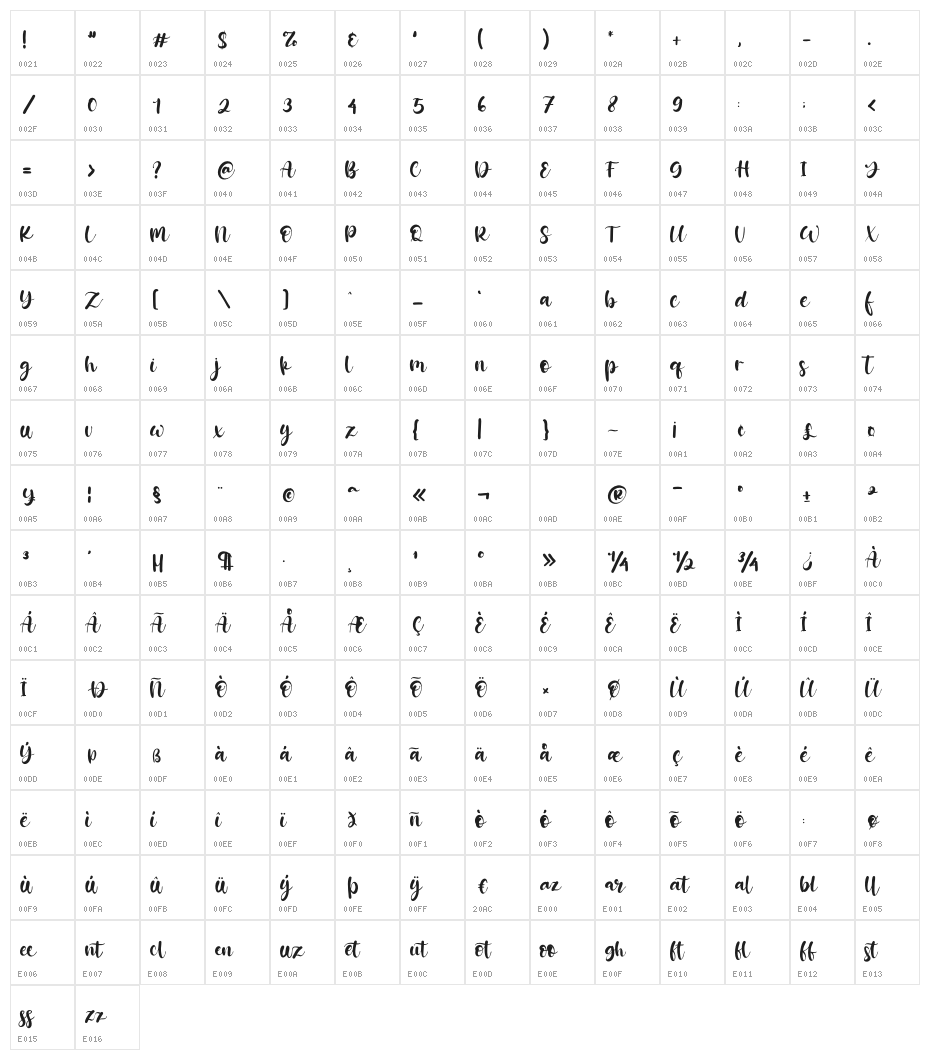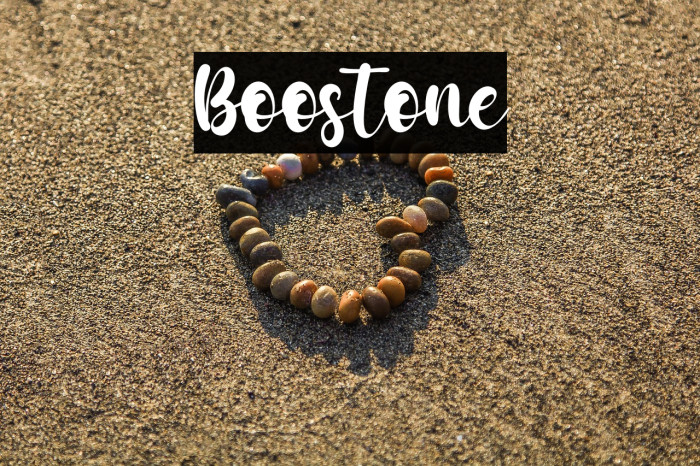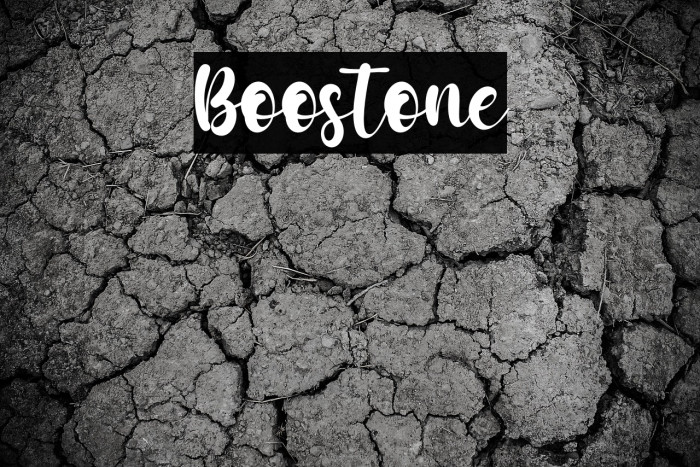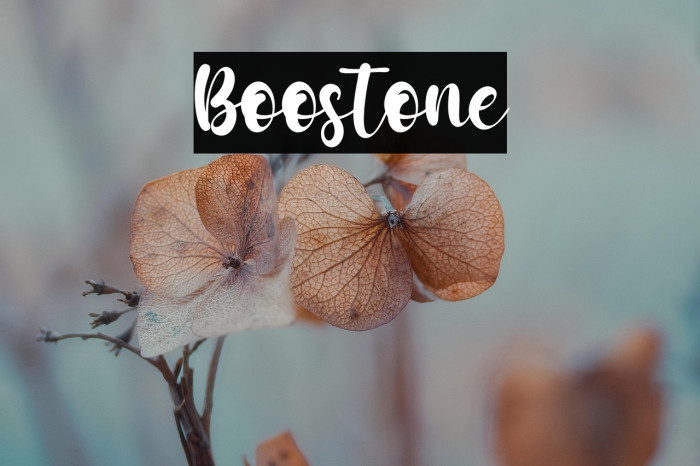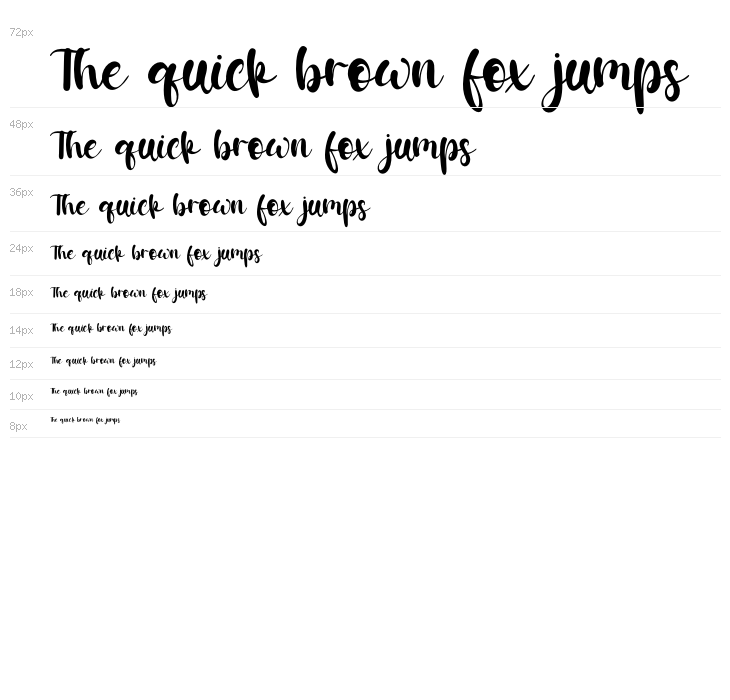
Boostone Font
Boostone Description
This font features a lively and expressive script style, characterized by its fluid and dynamic strokes. The letters are interconnected with a natural flow, giving it a handwritten appearance. The uppercase letters are bold and prominent, while the lowercase letters maintain a consistent rhythm and elegance. The numerals are distinct and easy to read, complementing the overall style. Special characters are creatively integrated, adding to the font's versatility. This font exudes a sense of creativity and personal touch, making it suitable for various artistic and decorative applications.
Use CaseLogos, Invitations, Artistic Projects
Proposed ProjectsIdeal for wedding invitations, greeting cards, branding, and artistic projects.